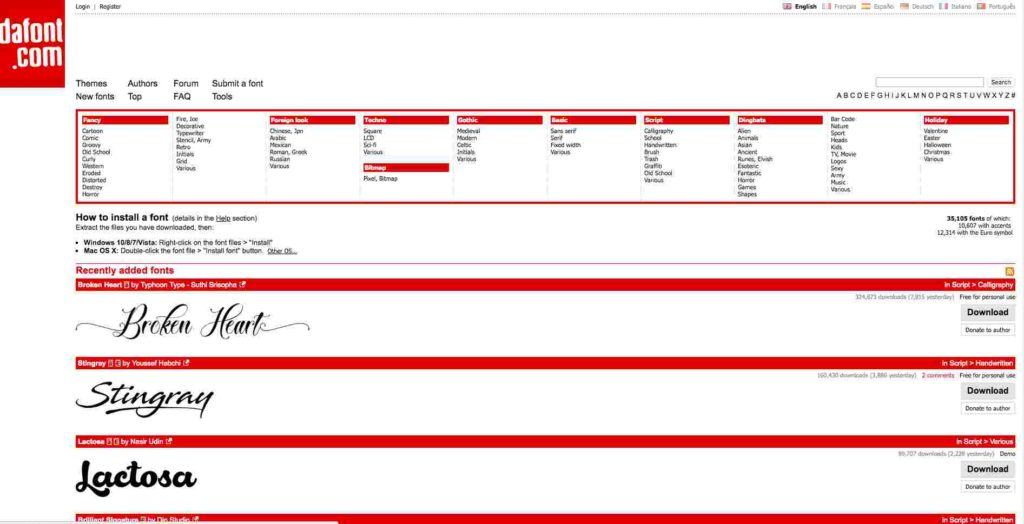
Monoline typefaces are basically fonts where the stroke of each letter is the same thickness. The velvetyne type foundry (vtf) 3.
Simple Best Free Font Sites With New Ideas, You can find a ton of unique fonts in many categories, like fall, halloween, or easter, making it easy to find a good quality font for a general or specific purpose. You can also browse by font designer, new.
What to look for in a font aggregator. Many have been embraced by the design world and are now widely used for web and other commercial purposes. Google's platform offers more than. It offers more than 1,300 different.
Top 10 Free Fonts Download Sites for Commercial Use in 2019 Dafont.com is one of the best places to find free fonts online.
Here are some of our favorites: As we have perpetually stated, typography is one crucial component in all types of design from product packaging to production, logos, web design, and that has the power to change the display and character as well as convey the meaning behind a project. Many have been embraced by the design world and are now widely used for web and other commercial purposes. It’s fairly new, but interestingly enough it seems to have taken the world of typographic design by storm.
93 best free fonts to create stunning designs easil. Ramisland is a modern and classy serif font with a unique style and modern look. You can filter your results by category, language, popularity, and even attributes such as thickness and width. Verified all content up to date. Best Farmhouse Fonts On Dafont IAE NEWS SITE.
Top 3 picks for the best free font sites. Awwwards free font collection 10. Google recently launched its own free font library. There are many free font websites available for designers on a budget to find the perfect font. 12 Best Fonts for Websites and Blogs for Better Readability.
This beautifully elegant and minimal font is completely free for you to use with your personal and commercial projects. This typeface is perfect for an elegant & luxury logo, book or movie title design, fashion brand, magazine, clothes, lettering, quotes, and so much more. This font is free for personal use. Polish designer gluksza offers some great free design resources. 8 Best Font For Letters Images Best Logo Fonts for Websites, Pretty.
93 best free fonts to create stunning designs easil. Purchasing fonts for commercial design. The site has a library of thousands of fonts, which users can search through by keyword or category. Awwwards free font collection 10. 5 Best Free Fonts Downloading Websites For Graphic Designers BizTechPost.
Top 3 picks for the best free font sites. Free fonts download best and biggest font archive. You can also browse by font designer, new. Dafont.com is one of the best places to find free fonts online. 6 Best Free Online Font Creator Websites.
At fontspace, you can download one of 36,000+ fonts in seconds. Fonts.com sells a huge variety of fonts. Have a look at the most exciting games using this font by taking advantage of the 50€ free cash. Here are some of our favorites: Top 10 Sites to Download Free Fonts Honeytech Blog.
It’s fairly new, but interestingly enough it seems to have taken the world of typographic design by storm. As we have perpetually stated, typography is one crucial component in all types of design from product packaging to production, logos, web design, and that has the power to change the display and character as well as convey the meaning behind a project. The site has a library of thousands of fonts, which users can search through by keyword or category. There are many free font websites available for designers on a budget to find the perfect font. Top 10 Free Fonts Download Sites for Commercial Use in 2019.
As we have perpetually stated, typography is one crucial component in all types of design from product packaging to production, logos, web design, and that has the power to change the display and character as well as convey the meaning behind a project. Download otf (offsite) z y m m acherus grotesque horizon type 2 styles. Every font is added and categorized by a real person. Link to purchase full version and commercial license […] Light Handwriting Font Collection From Canva in 2020 Shopify design.
What sets this platform apart is its vast and intuitive filtering system, helping you easily find styles that are “vintage,” “floral,” “scary,” “funky,” etc. Best font websites for free fonts. The velvetyne type foundry (vtf) 3. It includes 12 different styles of fonts featuring more than 2700 glyphs.